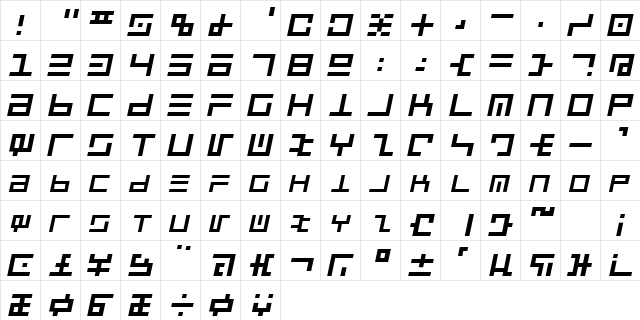
Cyberspeak Oblique
Design Context for Cyberspeak Typeface
Cyberspeak has a distinctly futuristic character, with geometric precision and clean angles that feel at home in technology, gaming, and sci-fi contexts. The dynamic lean of this cut emphasises speed and emphasis in any layout.
Pro Tip: Use Cyberspeak in combination with a neutral sans for body text. Let it define the brand voice in headlines while keeping reading comfortable elsewhere.